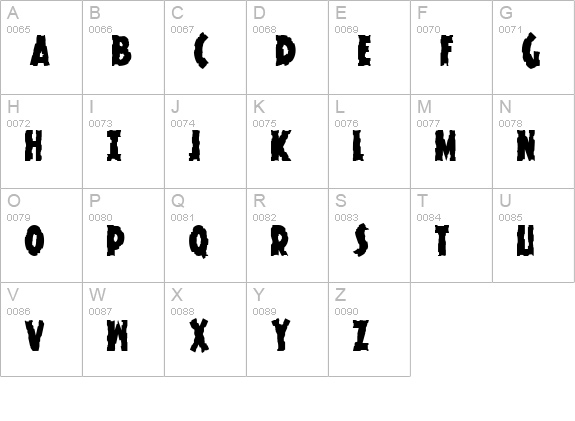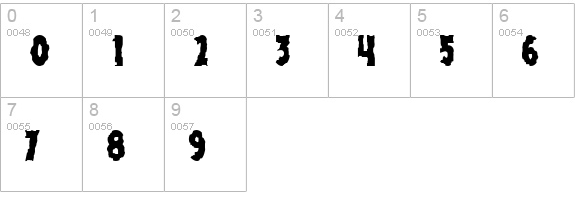
Knuckle Sandwich Krunchy Font Details
Knuckle Sandwich Krunchy font is a bold and eye-catching typeface that exudes strength and character. With its rugged edges and distinct style, this font is perfect for making a statement in your designs. Whether you're working on a poster, logo, or branding project, Knuckle Sandwich Krunchy font will add a touch of edginess and personality. The best part? Knuckle Sandwich Krunchy font is completely free to download at FontsMarket.com! This means you can easily access this unique font and use it in your projects without any cost. Don't miss out on the opportunity to elevate your designs with the striking Knuckle Sandwich Krunchy font - download it now and let your creativity shine!